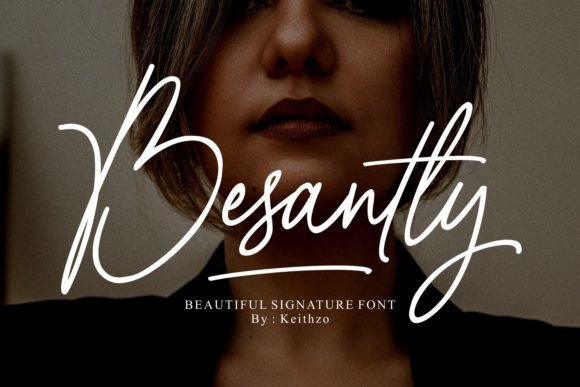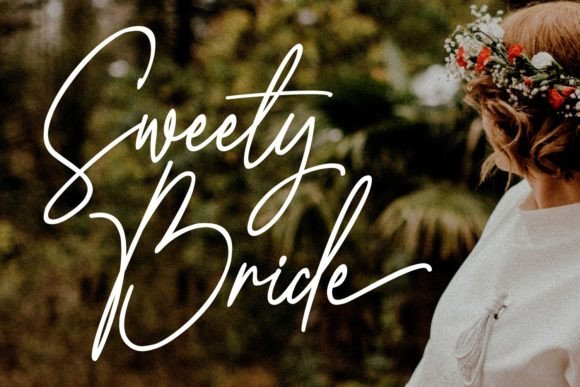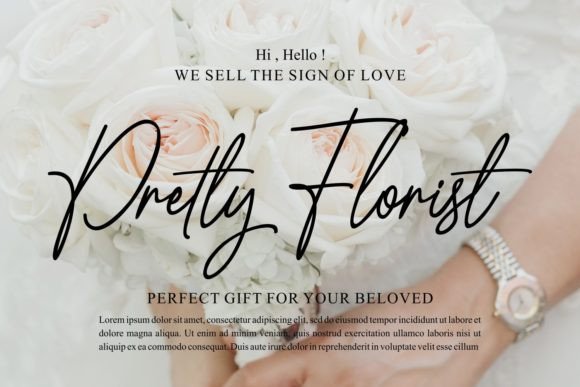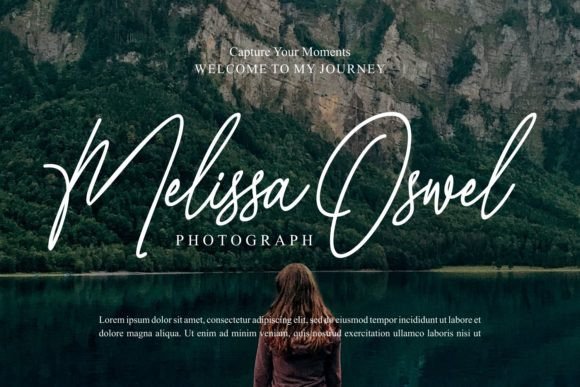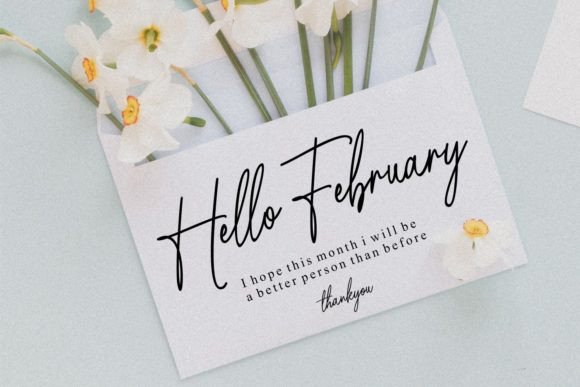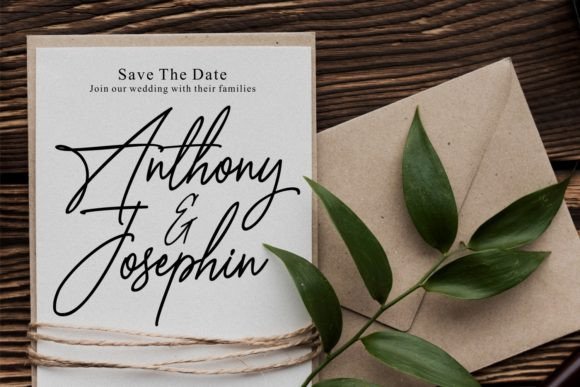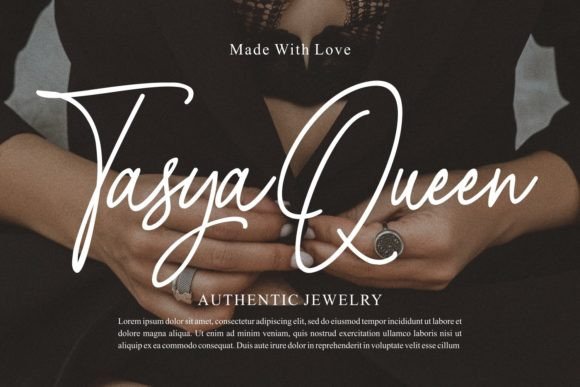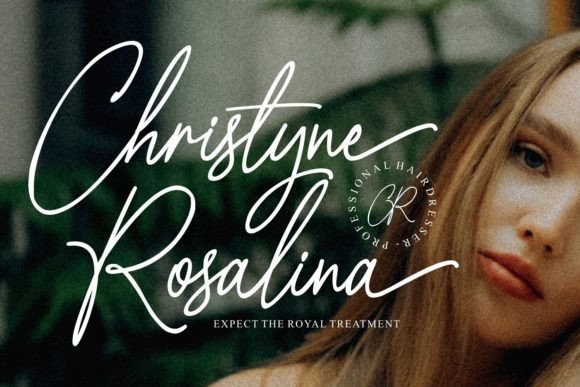
Besantty
Besantty is a beautiful and light handwritten font with a unique feel and a stunning impact. It will add a luxury spark to any design project that you wish to create! This font is PUA encoded which means you can access all of the amazing glyphs and alternates with ease!